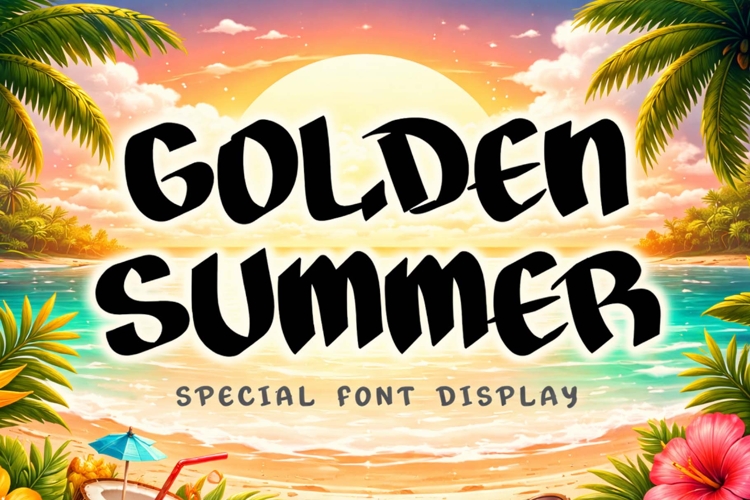
"Golden Summer" is a unique and elegant display font. It features uppercase and lowercase letters, numerals, punctuation, and multilingual support. It's perfect for summer, holidays, spring, coloring books, logos, stickers, banners, branding, back-to-school, children's magazines, patriotic prints, t-shirts, business branding, birthdays, and more.